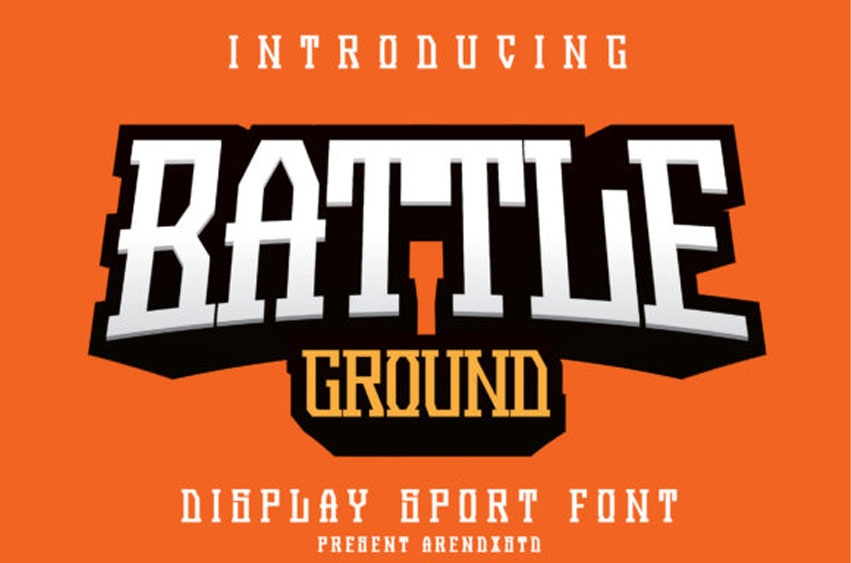
Battleground Font
Battleground Font is a bold and vintage styled display font.
Whether you’re using it for crafting, digital designing, presentations or greeting cards making, it’s perfect!